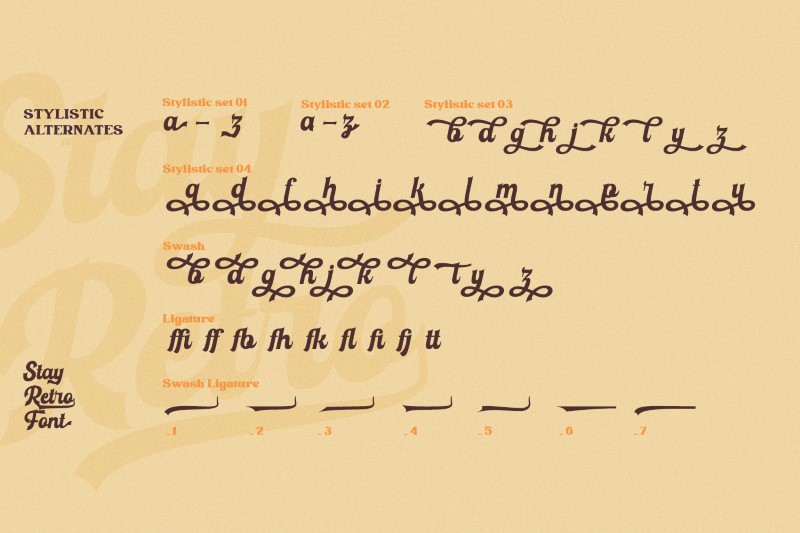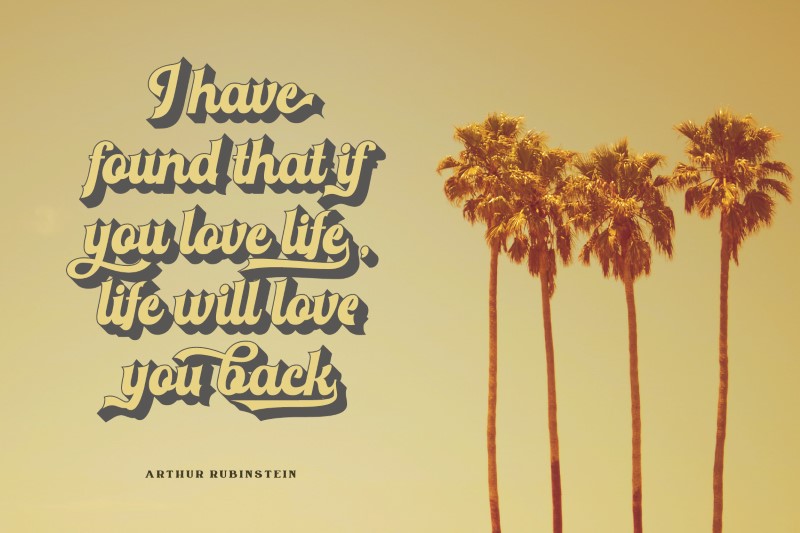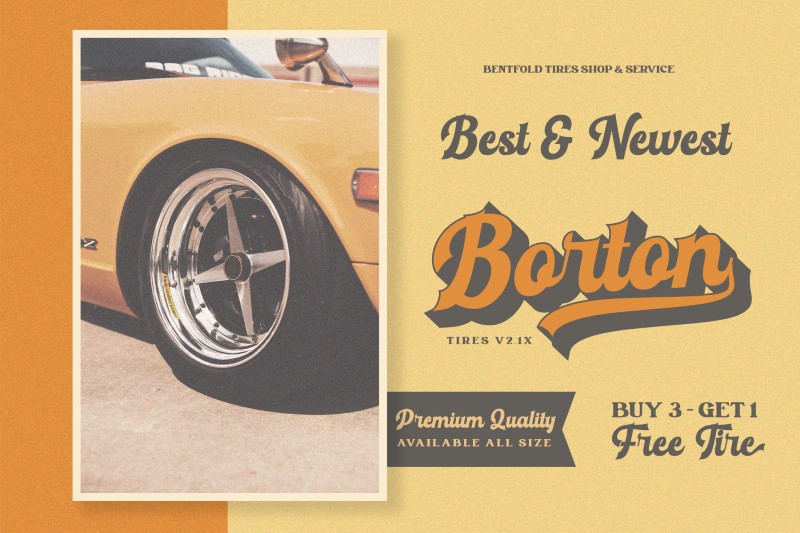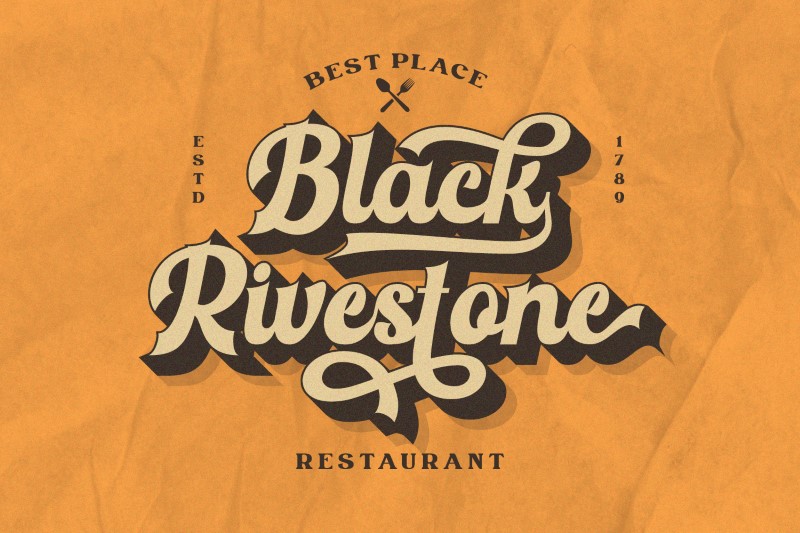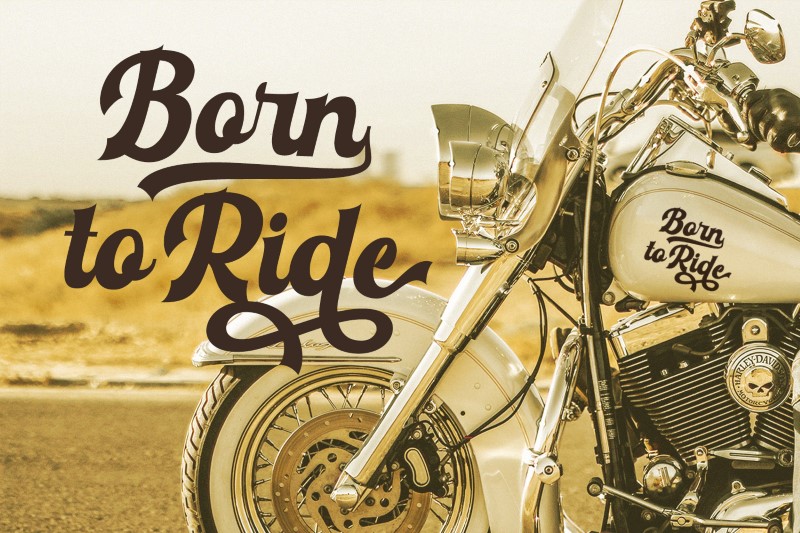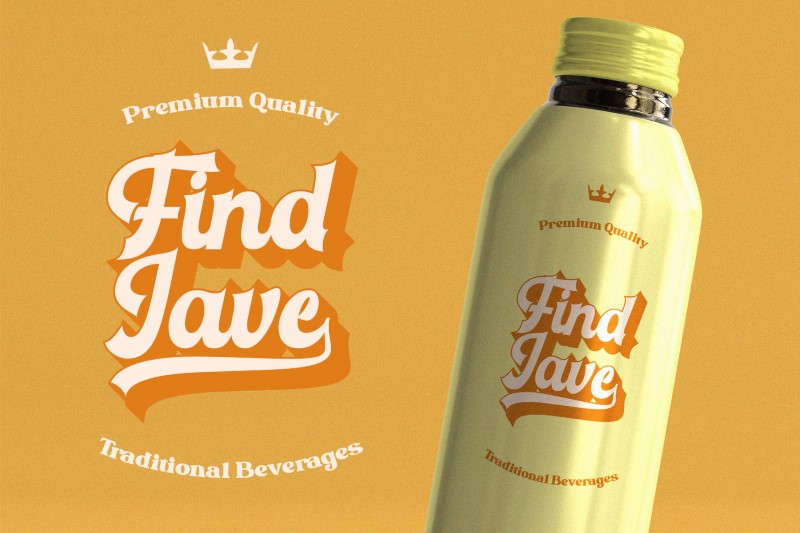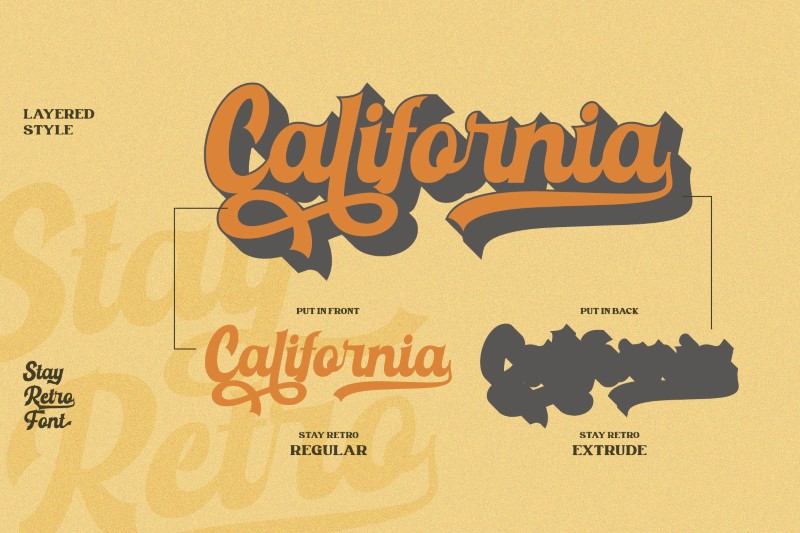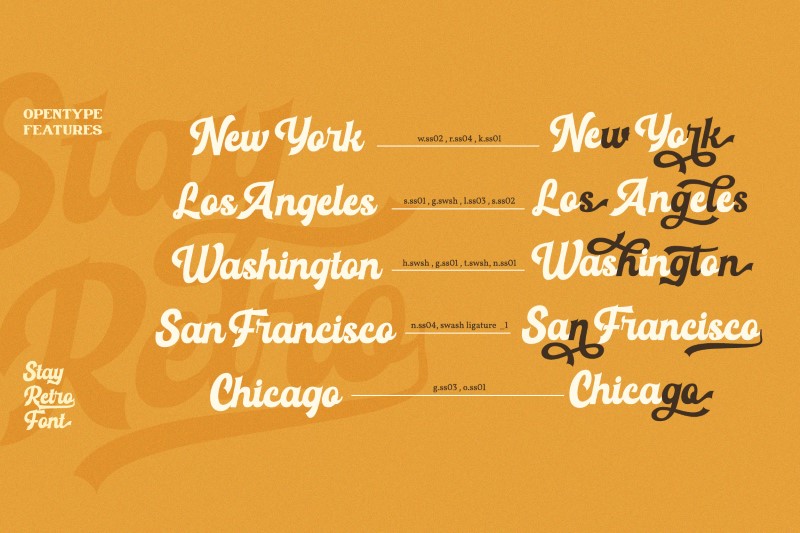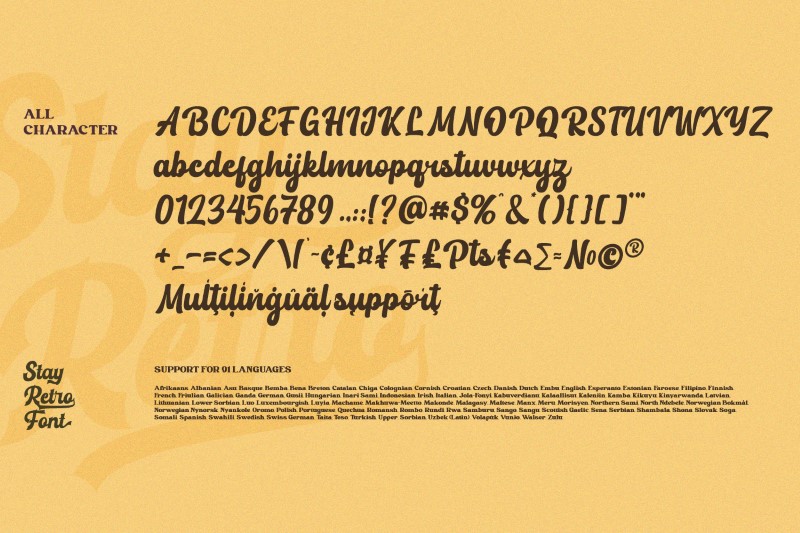
Stay Retro
Are you looking for a script font with a touch of retro style? Do you dream of creating standout headings that represent creativity, imagination, and endless fun? Then we’ve got the right font for you! Introducing Stay Retro.
This bubble script font can be used for a host of different content needs and projects. It is an excellent choice to add the right amount of street vibe and playfulness. Create gorgeous printed quotes, standout packaging, or beautiful t-shirts! You can even use it to create amazing headings, logos, menus, and social media graphics.
Features :
• Standard Ligatures
• Stylish Sets
• Swashes
• Multilingual Supports
• PUA Encoded
• Numerals and Punctuations